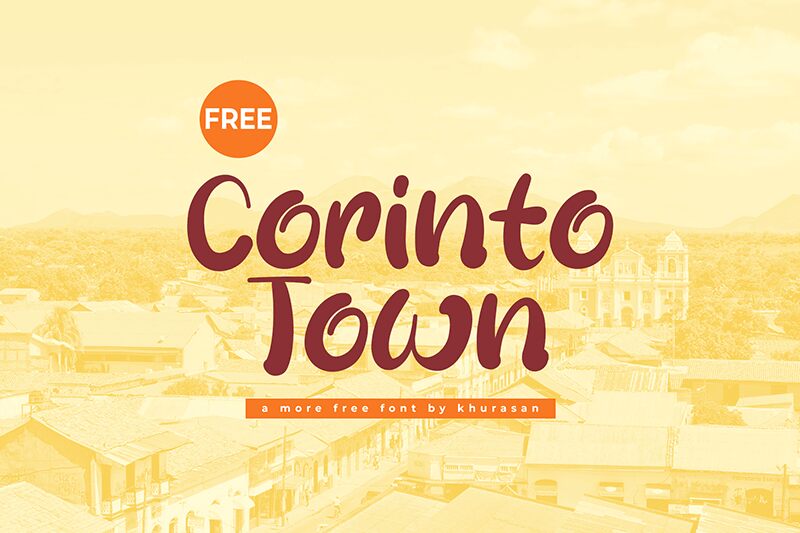
Corinto Town
Corinto Town font is a bold, expressive display by Khurasan with a whimsical cartoon style. The unique font has an energetic personality and a contemporary flair, combining it all in an unusually stylish and casual design. This free display font is lively and animated with high legibility for both digital and physical applications.
Speak to your viewers loud and clear when you use Corinto Town in your app designs, animations, advertisements, billboards, games interface designs, websites, posters or magazine covers. Possible uses also include social media templates like Facebook covers or Instagram Stories along with flyers.